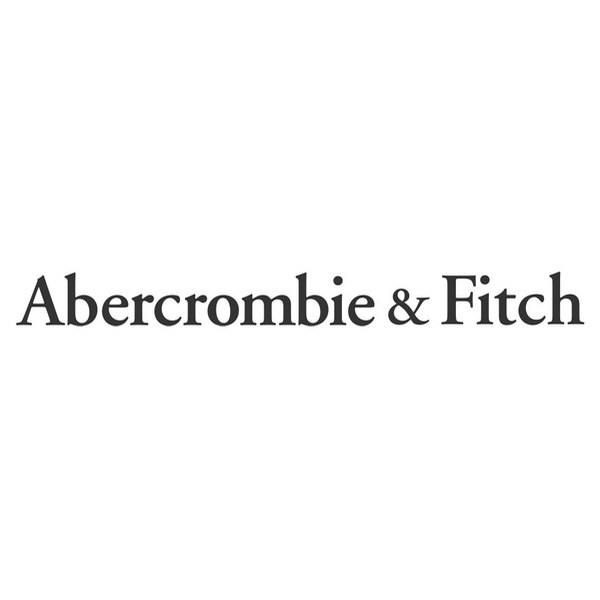
Abercrombie & Fitch Font
ApparelAbercrombie & Fitch is an American retail company that sells clothing, accessories, and personal care products for men, women, and children. The brand is known for its casual and preppy style, with a focus on high-quality, fashionable clothing.
The Abercrombie & Fitch logo lettering is very similar to Adobe Garamond Bold, which is a commercial font and you can buy the font here.